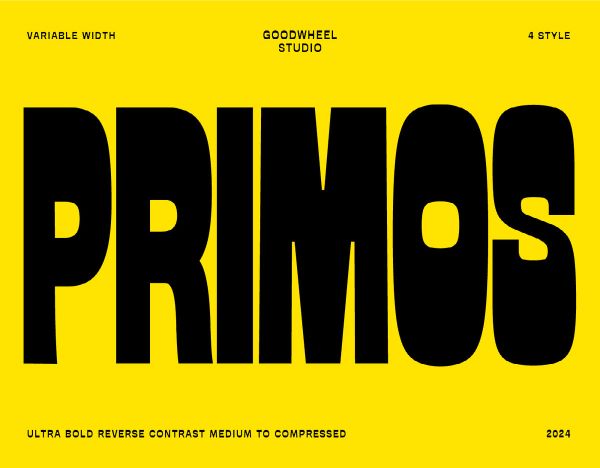
Primos Font
Primos by Goodwheel Studio is an ultra-bold display sans-serif with a reverse contrast construction and a variable font width axis — a combination that makes it both visually distinctive and technically flexible. Reverse contrast — where horizontal strokes are heavier than vertical ones, inverting the usual optical convention. With four static width variants (Medium to Compressed) plus a variable font file, designers can fine-tune proportions to suit specific layout needs, The demo version is available for personal use.